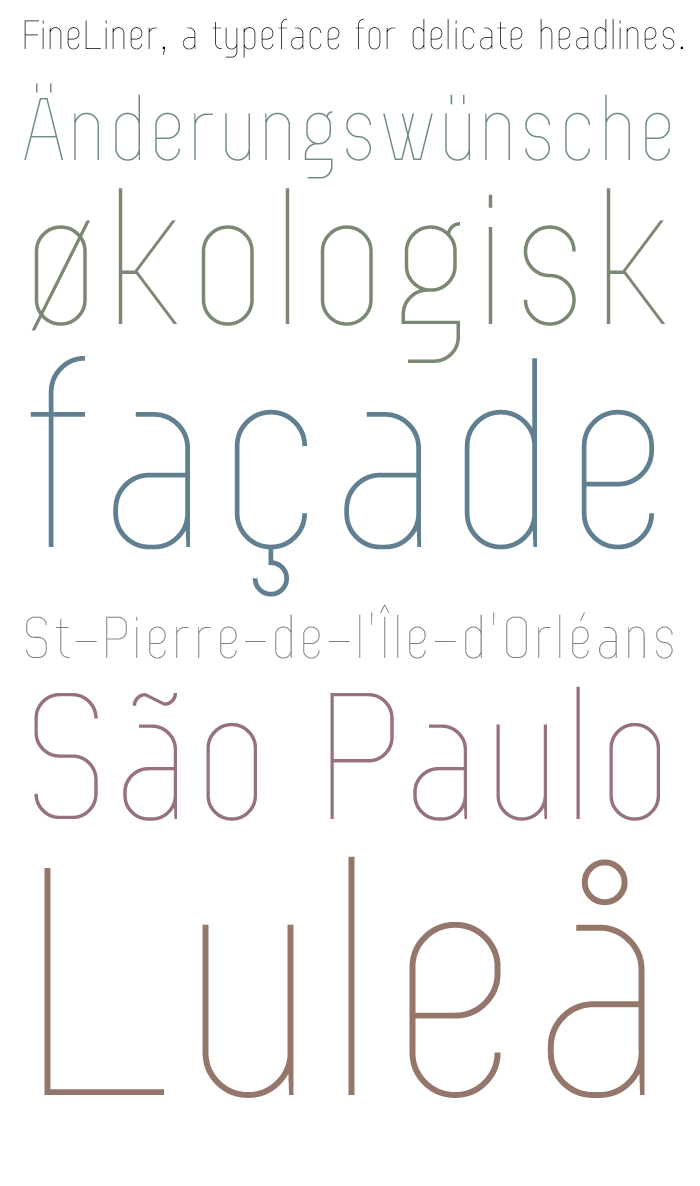
• Just a test... The new features greatly improve the fontstructing experience which already was great. Details about this font below...
Finally, it's possible to nudge curves in letters slightly, so that the viewing experience is more balanced. I'm loving it! :-)
Thin line sans serif takes advantage of new FS features. Simple geometric shapes with well-balanced proportions and proper spacing resulted in pristine looking text - that's easy to read even at small sizes. Rounded elements are adjusted with precision (overshoots). The width of diagonals virtually matches of the width of curves and of orthogonal strokes - a difficult feat that requires fine skills and patience. I think, FineLiner is a harbinger of the new generation of fontstructions to come. Given your history of exemplary works with large character sets (e.g. Terminal One), I trust you complete this project with numbers, punctuation marks, and special characters at your convenience. 10/10
You show the new nudging and probaly the new spacing perfectly. This is a skillful fineline design, very beautiful.
However, I added some more characters...